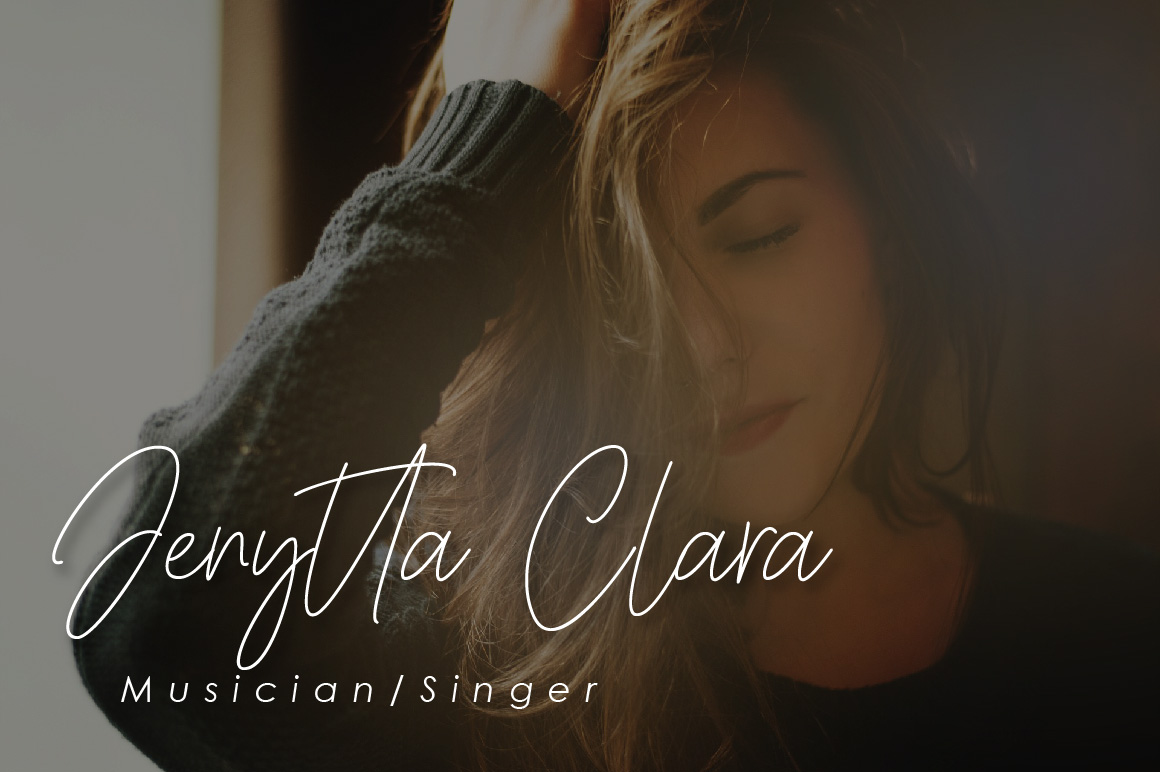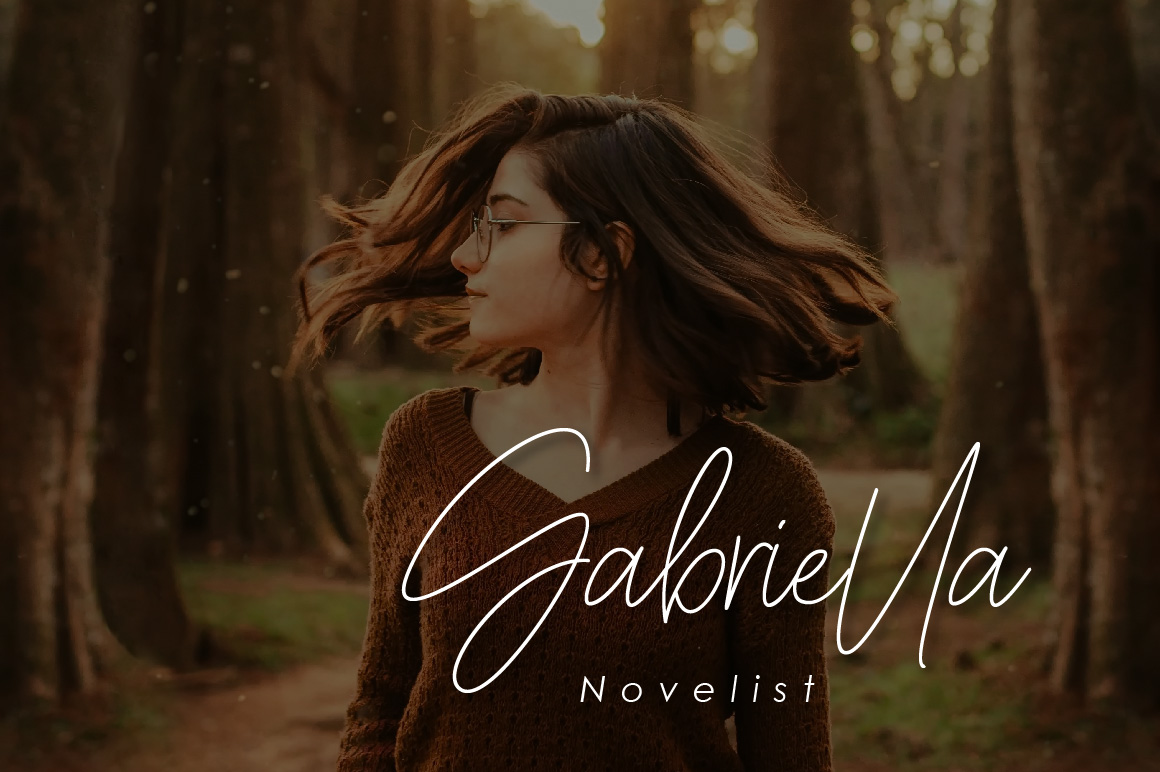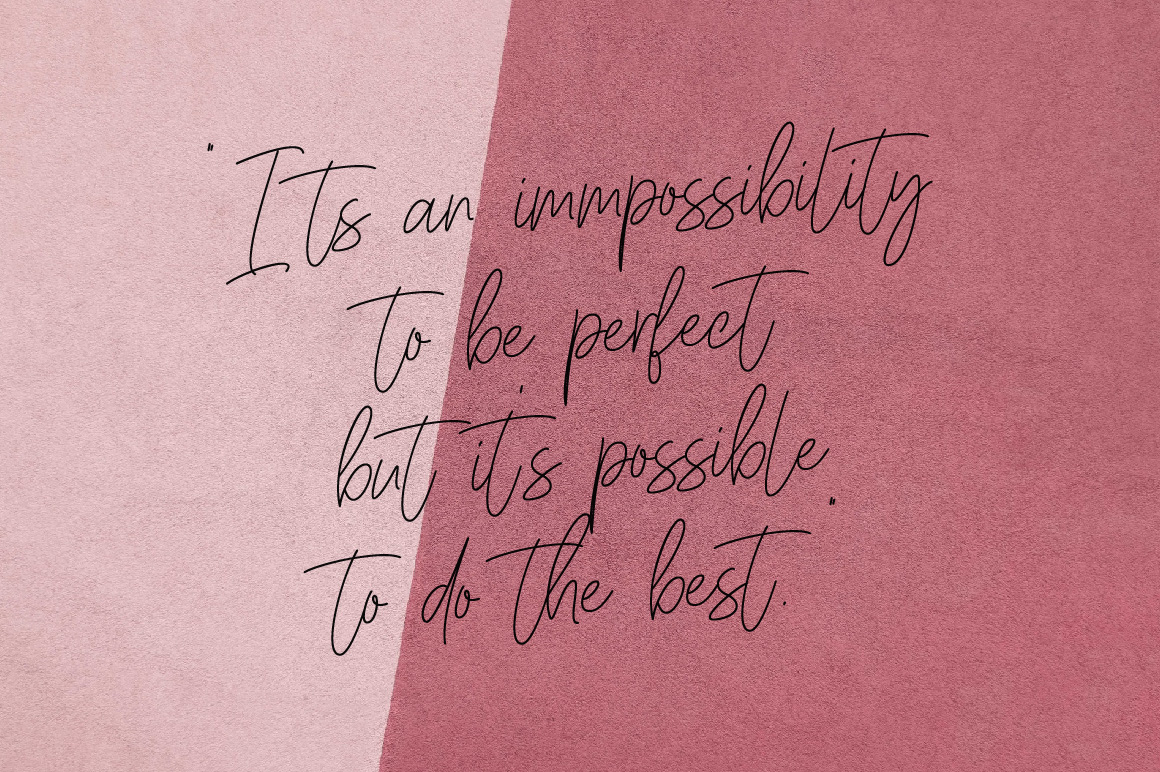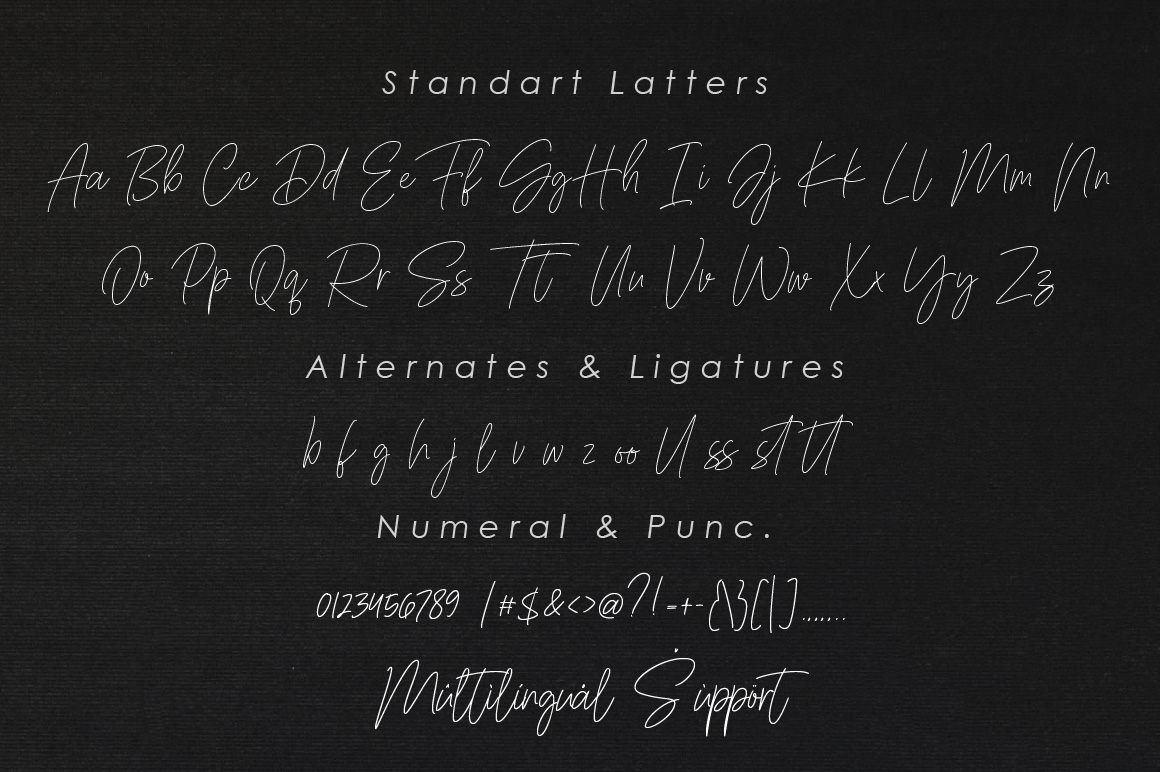
Sanderland Signature Font
This is a stylish and delicate script font. It has a clean, thin, and smooth vibe and it will be a hit for any design that you want to add it to. This font is PUA encoded which means you can access all of the glyphs and swashes with ease!